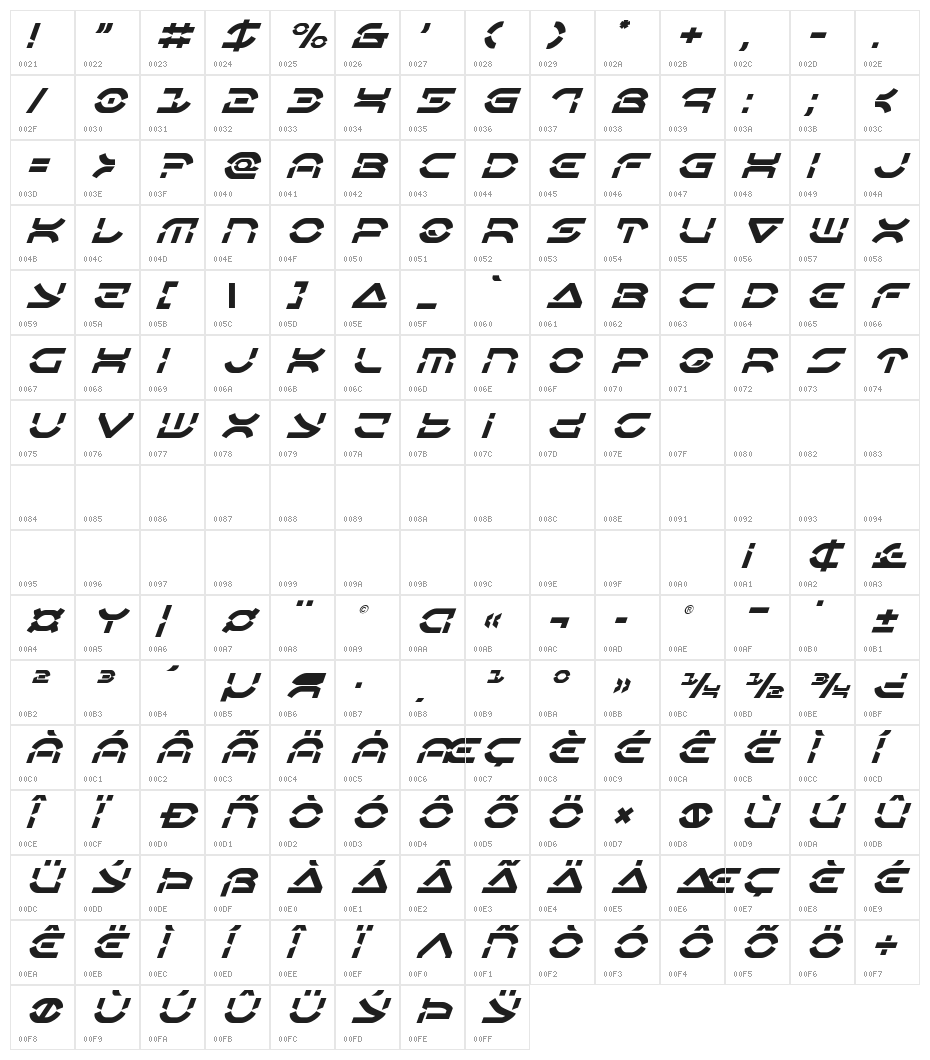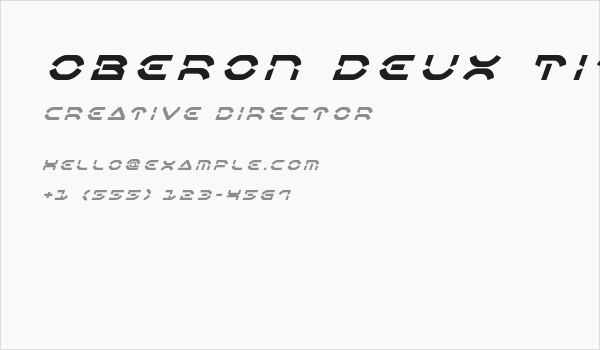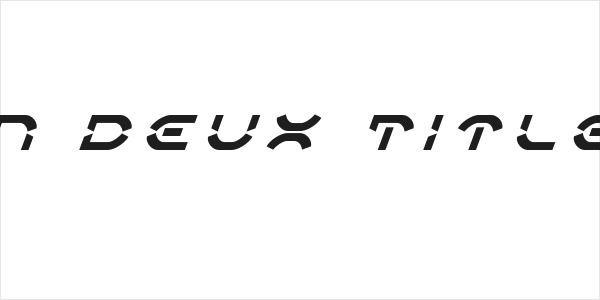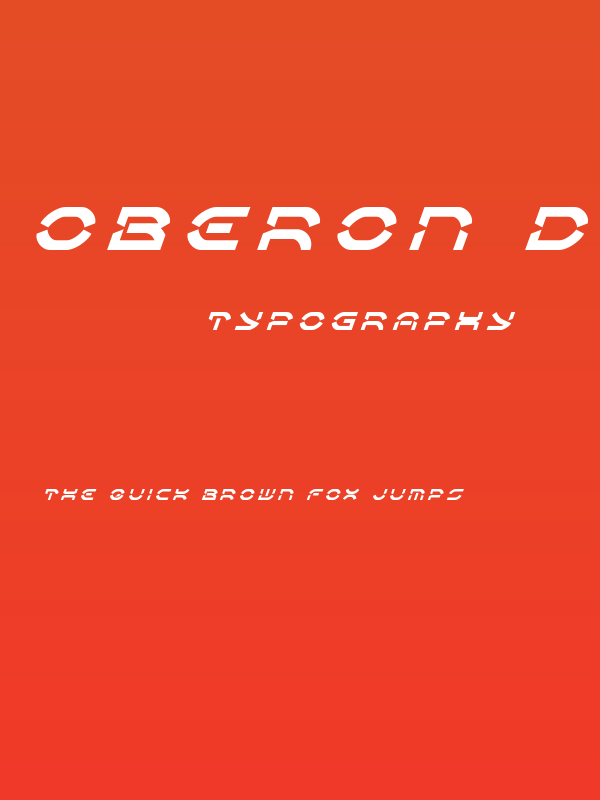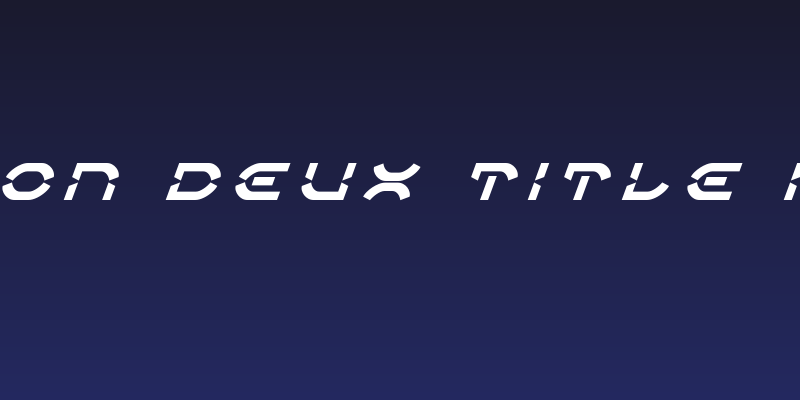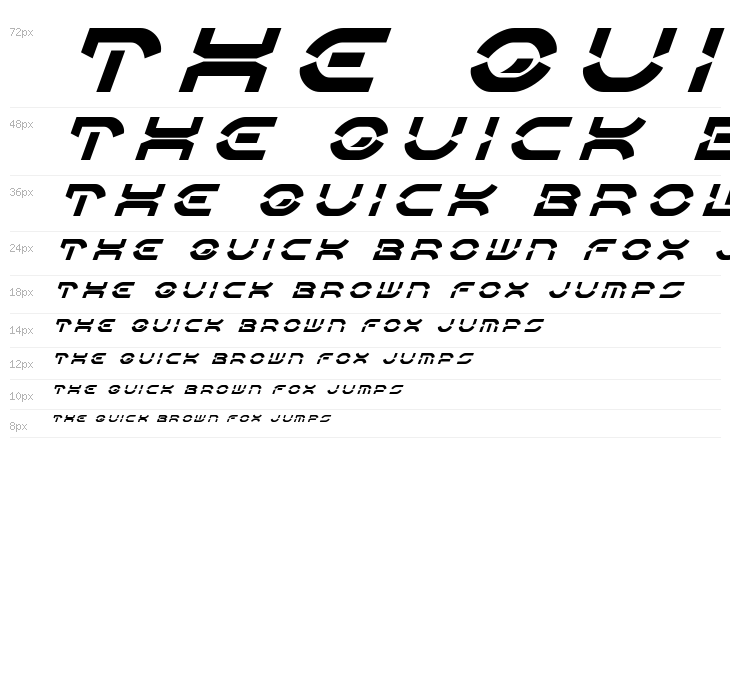
Oberon Deux Title Italic Font
Oberon Deux Title Italic Description
This font features a futuristic and angular design, characterized by its sharp edges and geometric shapes. The letters are italicized, giving them a dynamic and forward-leaning appearance. The uppercase and lowercase letters maintain a consistent style, with unique cutouts and slashes that add to the modern aesthetic. The numerals and special characters follow the same design principles, ensuring uniformity across all glyphs. The font's distinct style makes it suitable for projects that require a bold and innovative look.
| Proposed Projects | Ideal for sci-fi themed designs, technology branding, video game titles, and modern posters. |